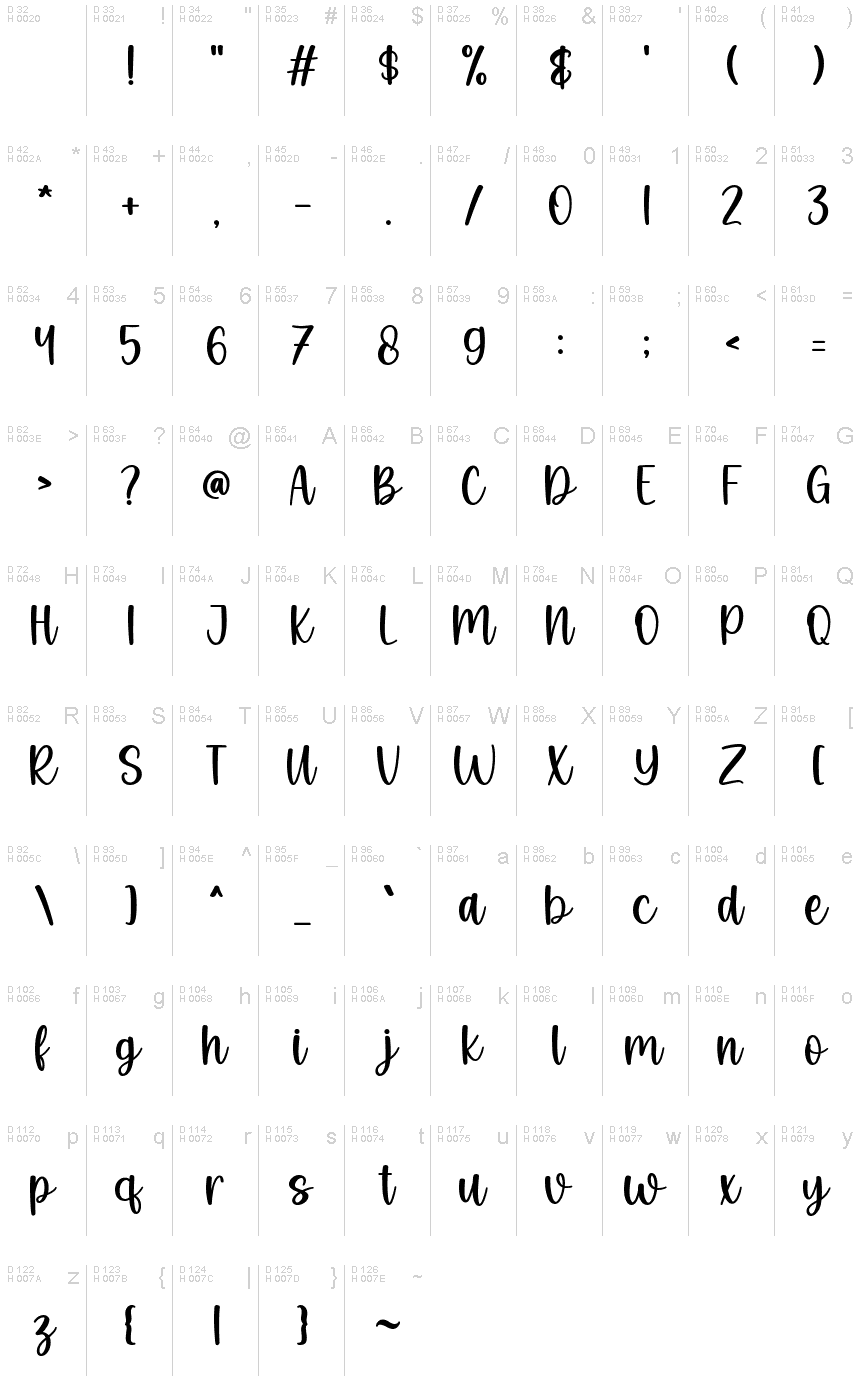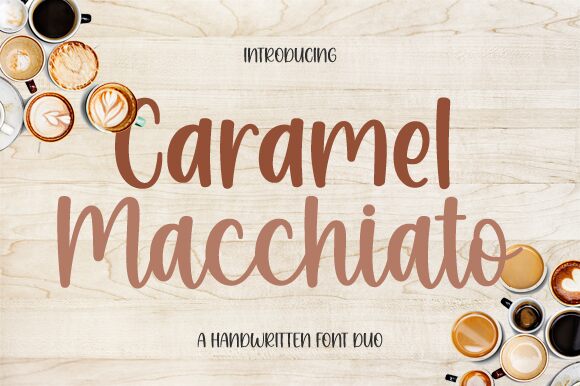
Macchiato
Macchiato, designed by Graphix Line Studio, offers a fresh and invigorating spin on handwritten fonts. With its fluid and expressive strokes, Macchiato captures the spontaneity of handcrafted artistry while maintaining a polished elegance that makes it versatile for various design applications. This font exudes a personal touch with its distinctive characters that seem to dance across the page, making it an excellent choice for branding projects, invitations, and any creative work where personality is paramount.
Its aesthetic appeal lies in the balance between whimsical charm and professional grace—a perfect blend for designers seeking to infuse their creations with both warmth and sophistication.